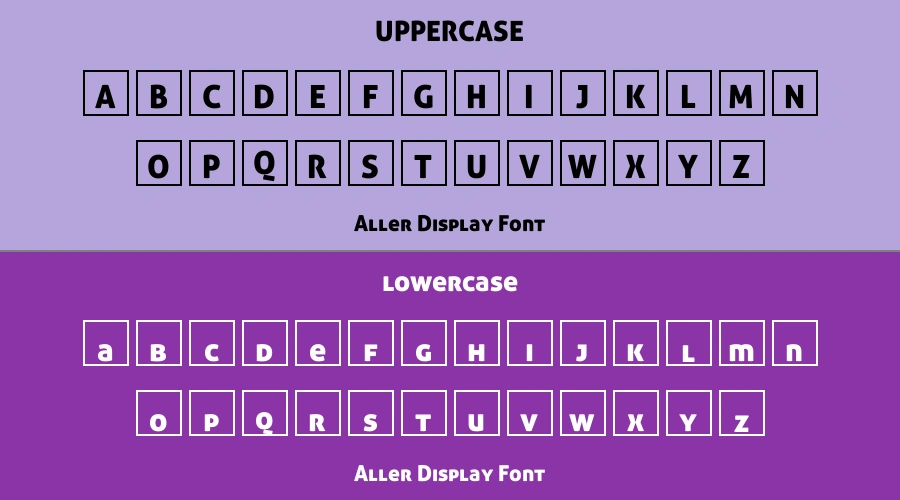
About Aller Display Font
When typographic excellence matters most, Aller Display Font delivers through its thoughtful blend of angled joins and visual impact. Specially crafted for historical publications, it offers the originality and market appeal required for sophisticated design work. Every detail serves a purpose.
The character set showcases thoughtful details like structural clarity alongside functional contextual ligatures. This proves especially valuable in colophons, where multi-color registration directly influences results. Particular attention was paid to stroke modulation and lifestyle alignment during development.